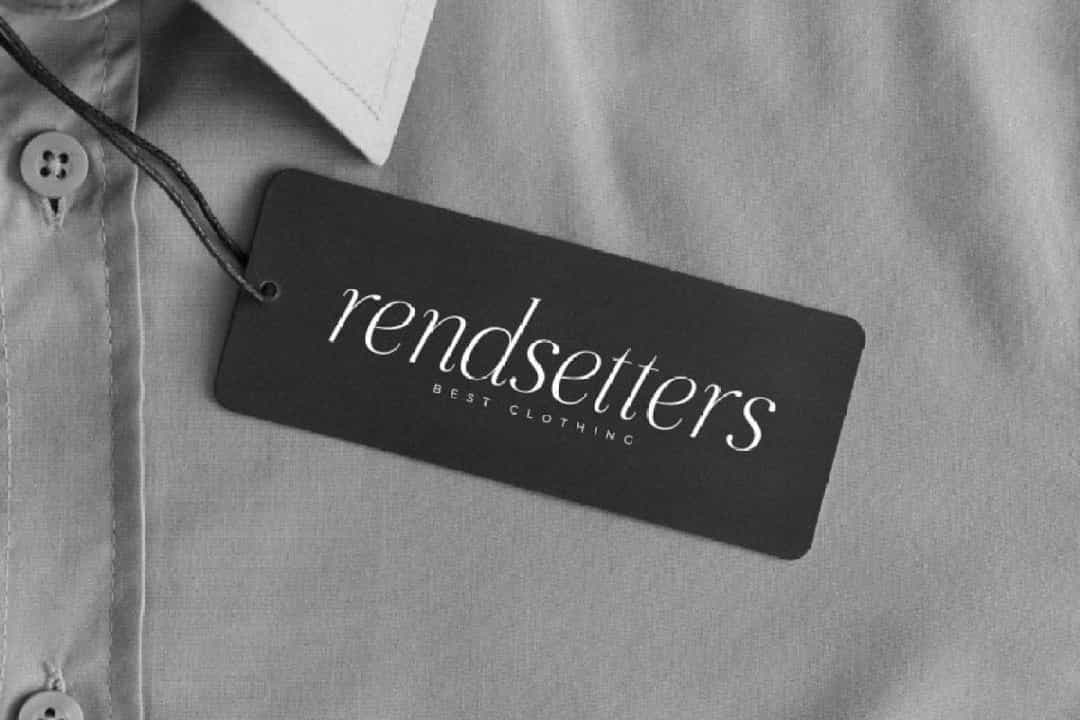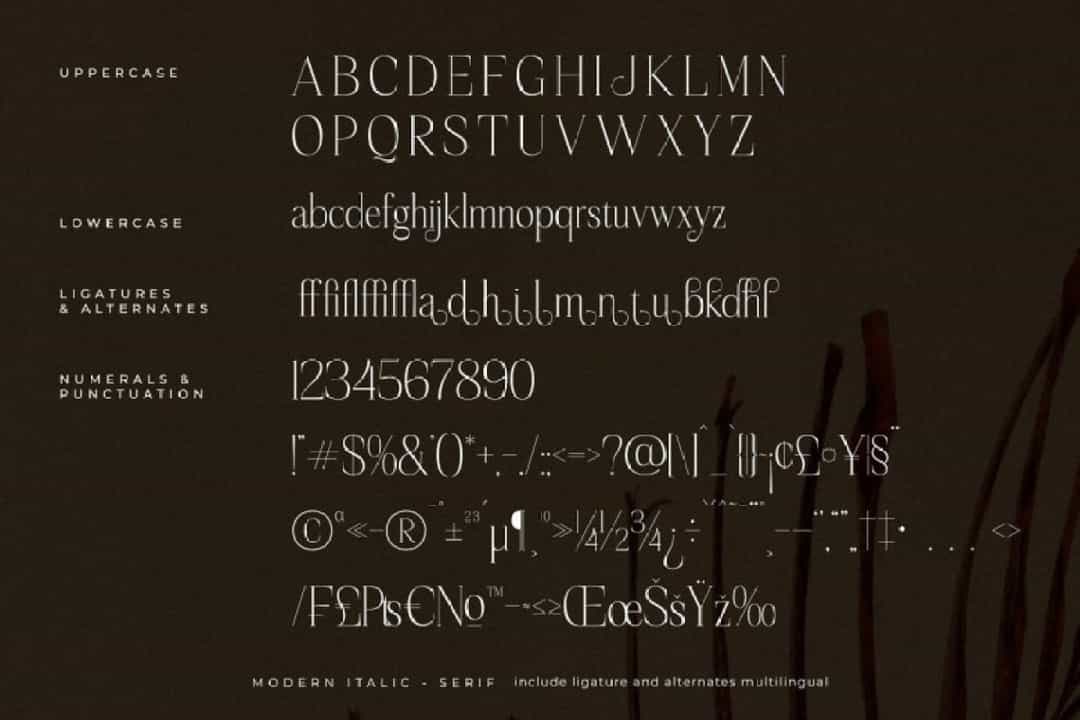
Sageffine is an elegant and modern serif typeface with distinctive style and modern appeal, ideal for sophisticated logos, movie/book name designs, fashion brand clothing designs, magazines lettering, quotes and much more. PUA encoded style means you have access to all its wonderful symbols and ligatures instantly!